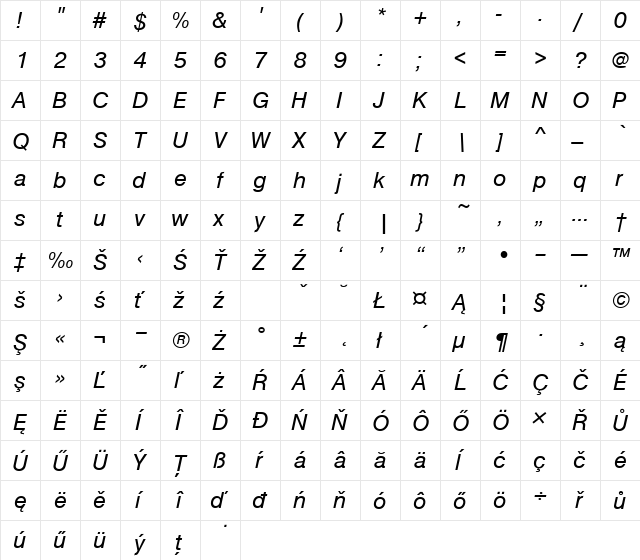
NimbuSanDEE Italic
Design Context for NimbuSanDEE Typeface
NimbuSanDEE is a composed and adaptable typeface that performs quietly and consistently across a wide range of design contexts. Its italic angle brings a sense of urgency and motion to the letterforms.
Pro Tip: Try NimbuSanDEE for annotation and caption copy alongside an upright companion — the contrast in angle creates a dynamic but ordered typographic system.